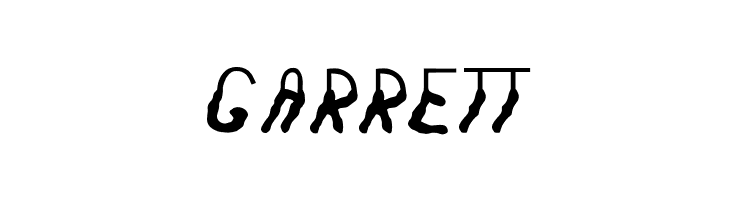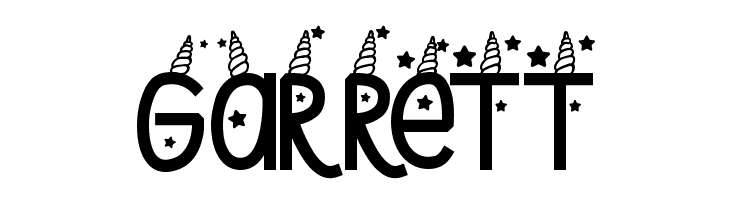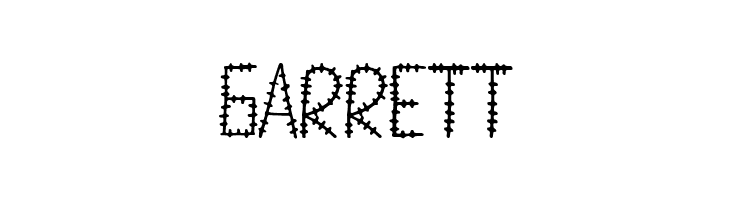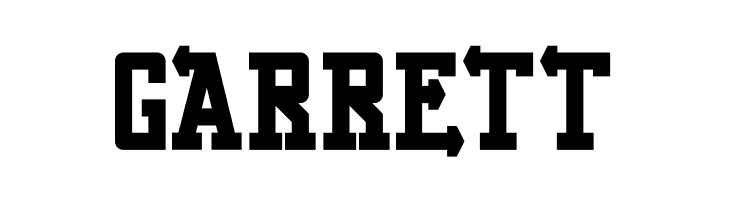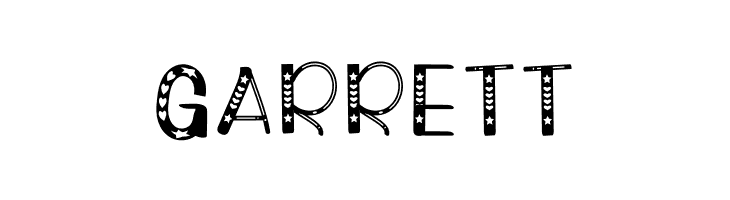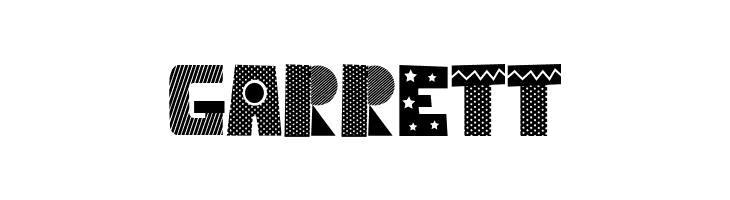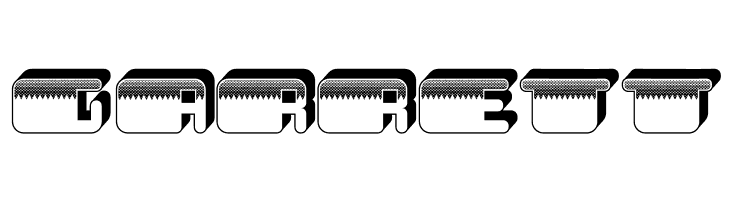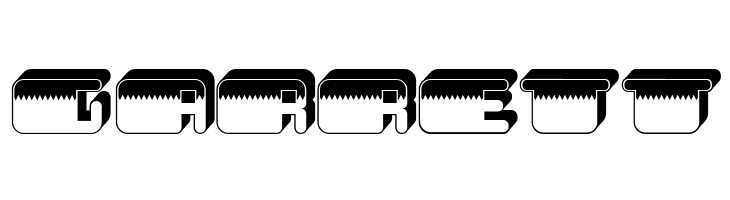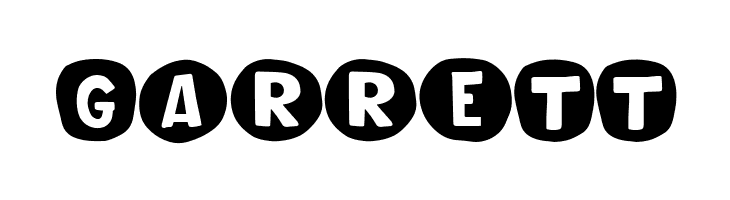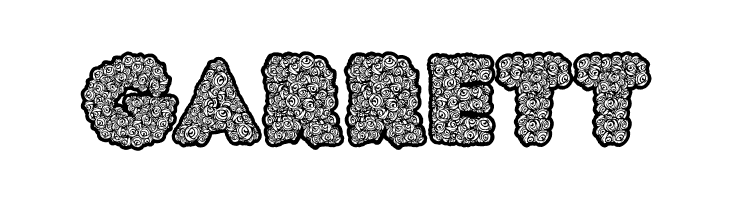
A bold, circular-enclosed font with a modern and striking appearance.
A modern, decorative font with characters enclosed in circles, offering a playful yet structured look.
A bold, geometric sans-serif font with characters enclosed in circles for a unique, decorative look.
A bold, pixelated decorative font with a retro digital aesthetic.
A bold, decorative font with a playful, hand-drawn style and textured interiors.
A bold, hand-drawn font with a textured, graffiti-like appearance.
A decorative font with architectural motifs and bold, geometric letters.
An ornate and decorative font with intricate swirls and embellishments.
A whimsical, decorative font with characters encased in swirling shapes.
Illustrative, fashion-themed decorative display font featuring women in various poses.
A bold, textured font with a playful, cloud-like design.
A hand-drawn, organic font with wavy, irregular outlines.
A jagged, thorn-like font with a rugged, edgy appearance.
A bold, decorative font with vintage Western-inspired elements and arrow-like serifs.
A whimsical font with unicorn horn and star accents, ideal for magical themes.
A whimsical, unicorn-themed decorative font with stars and hearts.
A decorative font with bold, patterned letters and whimsical designs.
A playful, star-adorned font with bold, rounded characters.
A whimsical script font with star embellishments and flowing, playful letters.
A bold, playful decorative font with unique patterns in each letter.
Bold decorative font with American flag motif.